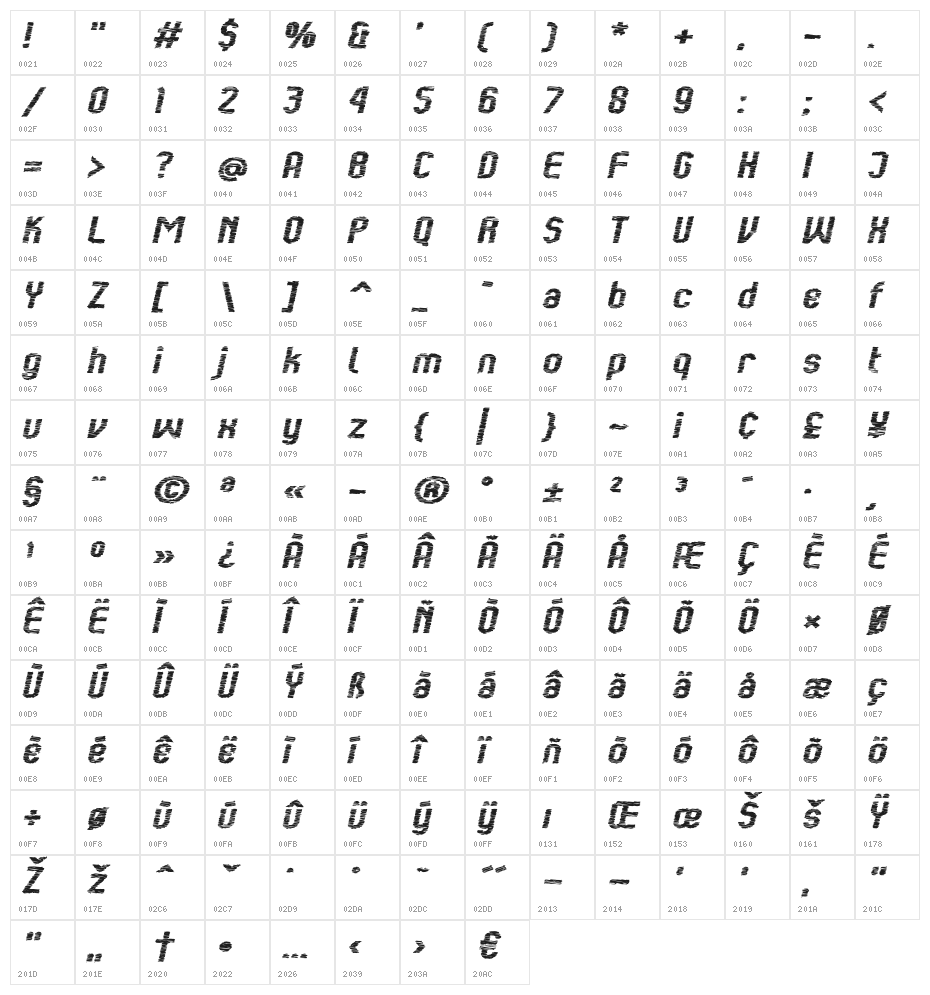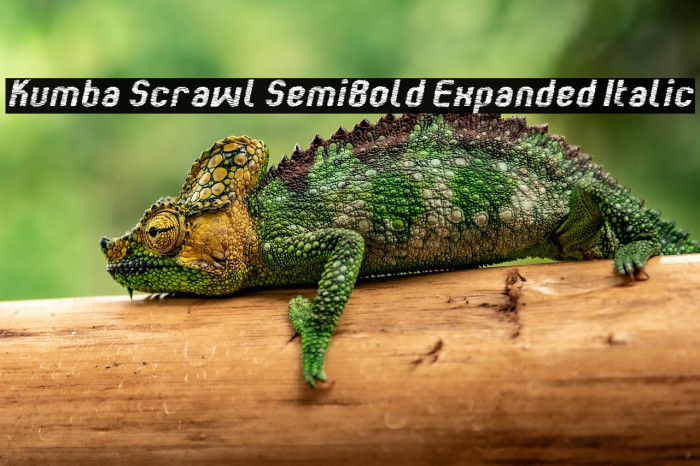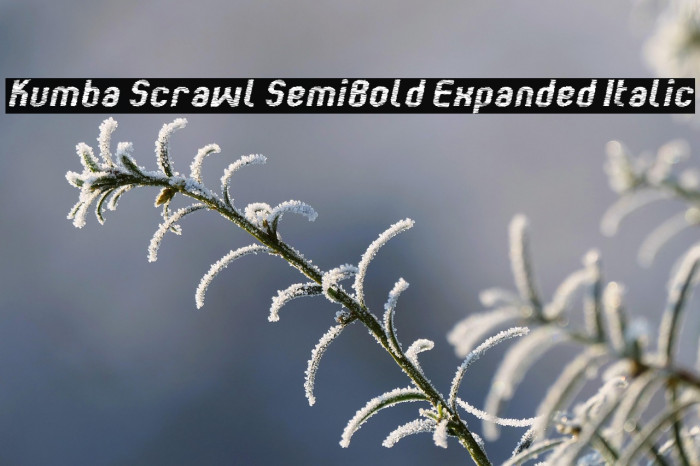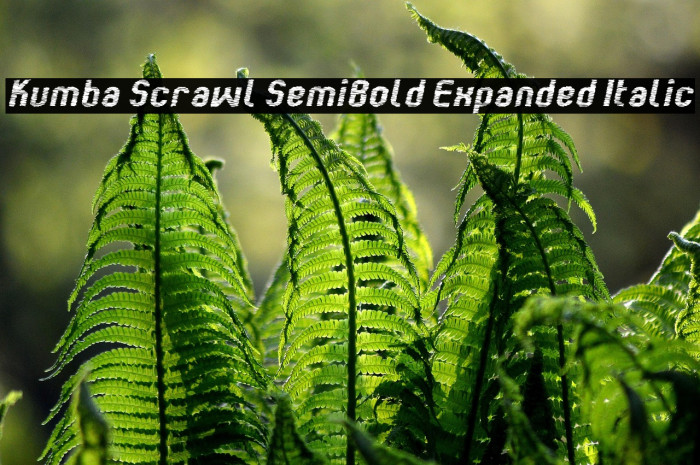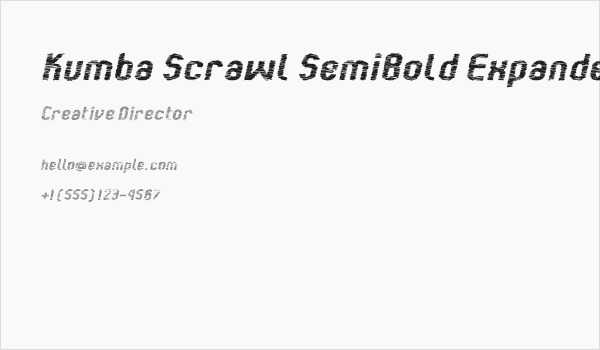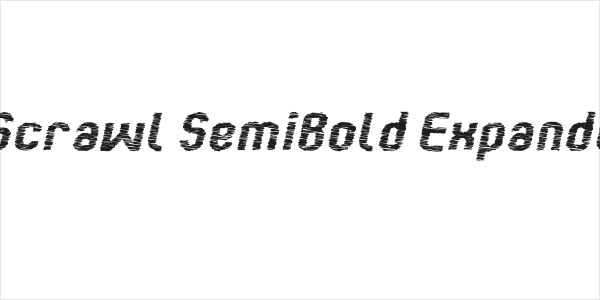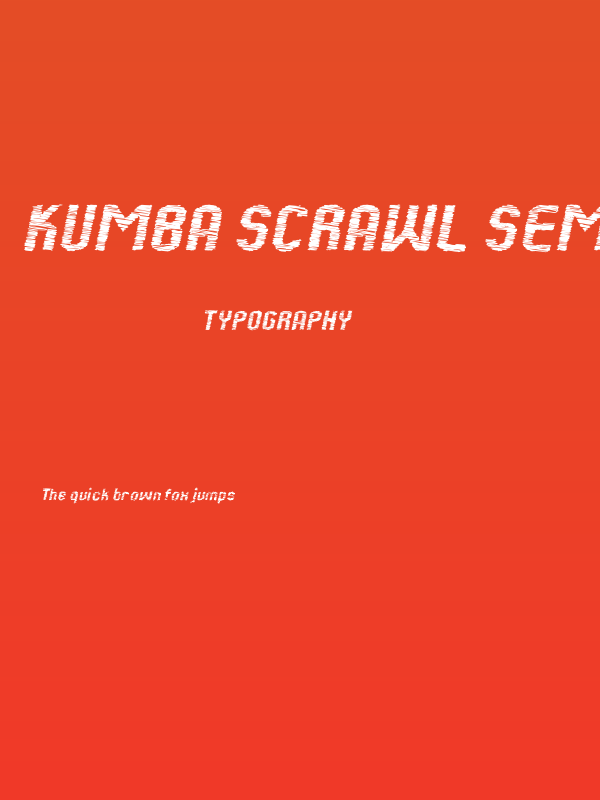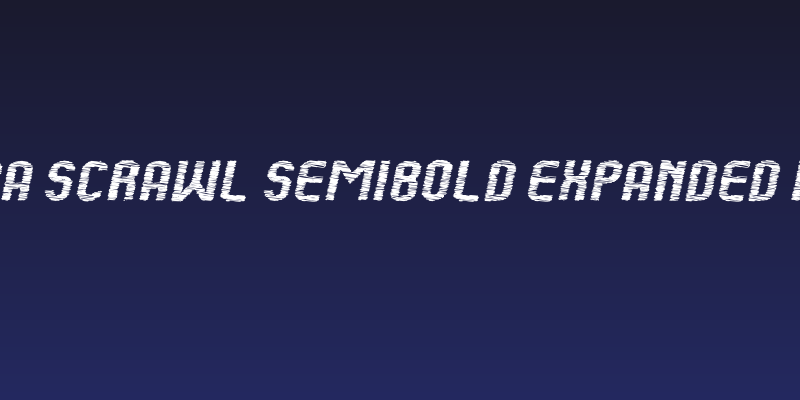
Kumba Scrawl SemiBold Expanded Italic Font
Kumba Scrawl SemiBold Expanded Italic Description
This font features a dynamic and energetic style with a scrawled, hand-drawn appearance. The characters are semi-bold and expanded, giving them a strong presence while maintaining a playful and informal vibe. The italic slant adds a sense of motion and fluidity, enhancing its expressive nature. The strokes are uneven, mimicking a sketch-like texture that adds depth and character. This font is ideal for projects that require a bold, artistic touch, such as posters, creative branding, or any design that aims to stand out with a unique flair.
| Proposed Projects | Ideal for posters, creative branding, artistic designs, and any project needing a bold, expressive touch. |